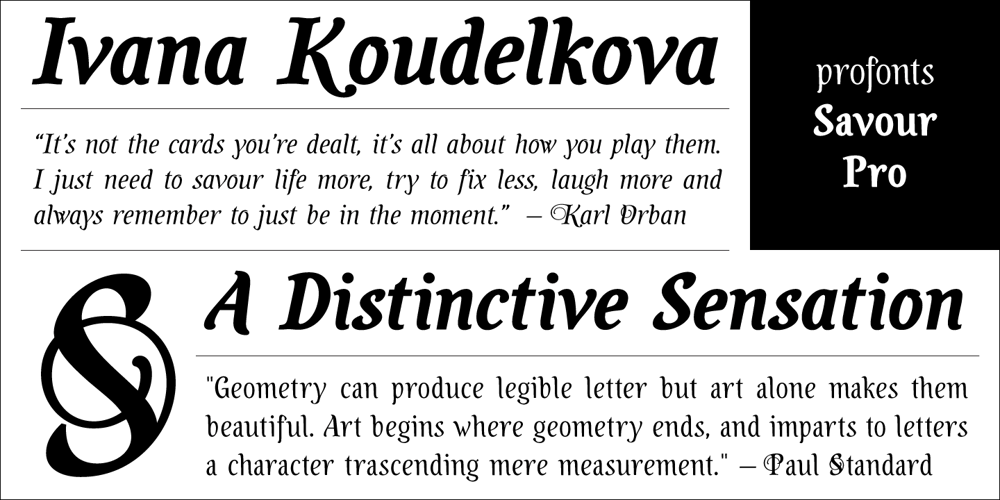
Savour Pro Font Family was designed by Ivana Koudelková and published by profonts. Savour Pro contains 8 styles and family package options. Savour Pro’s elegant, classic form has a calligraphic touch, almost a hand-written feel. The individual creation of the characters provide additional dynamics and vitality. Savour Pro comes with a complete set of upper case swashes as well as lining and old style figures.